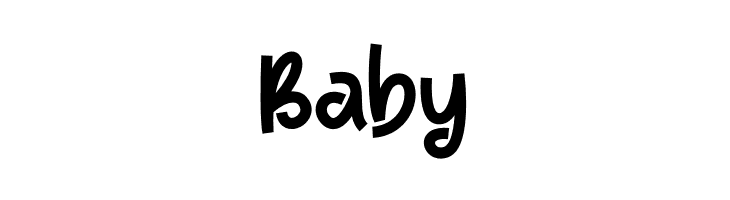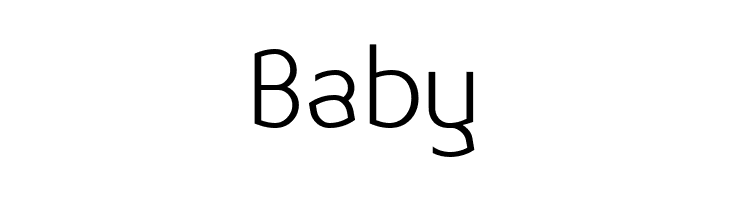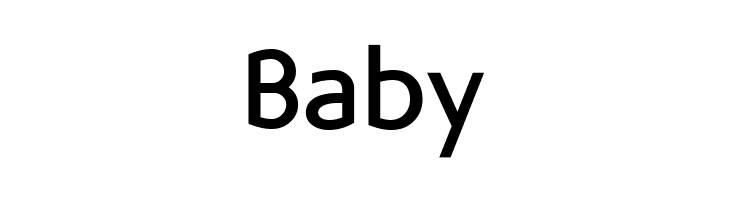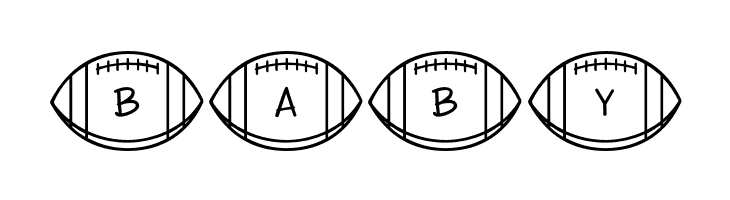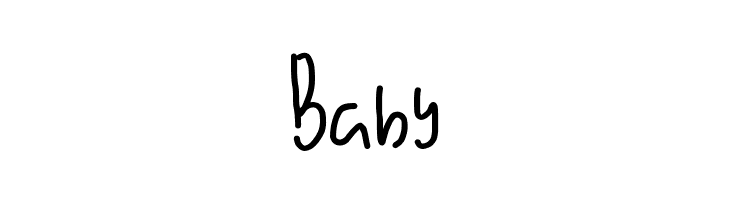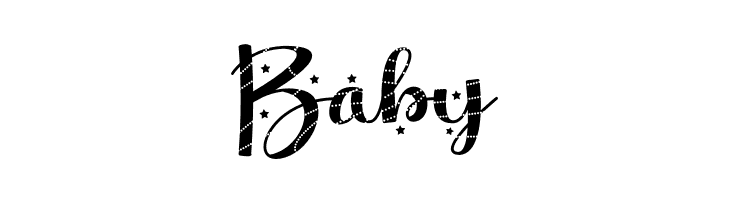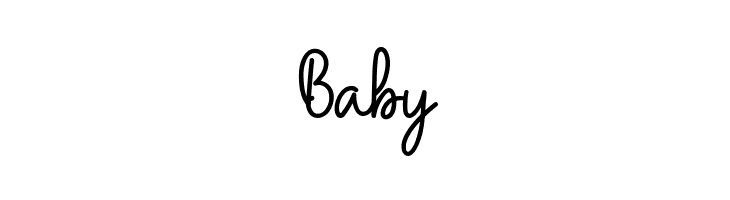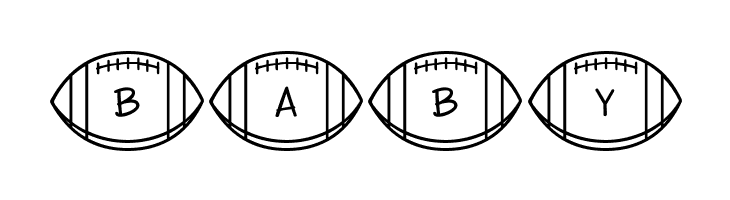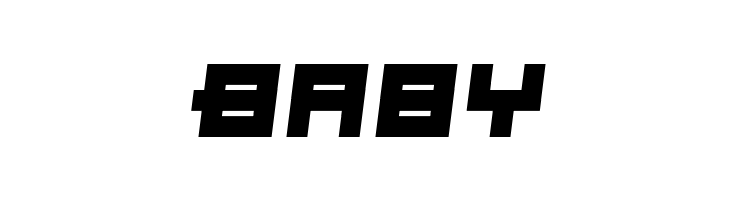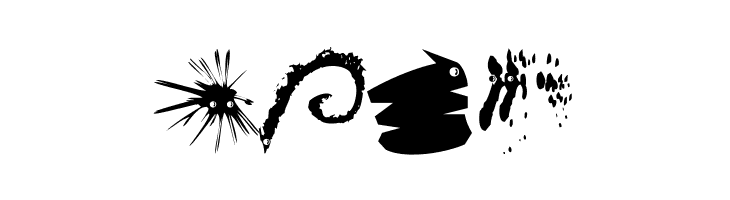
A playful, bold handwritten font with thick, rounded strokes.
A playful, decorative font with heart motifs and rounded characters.
A playful, handwritten font with a whimsical, cursive style.
A bold, angular Blackletter-inspired font with a modern edge.
A playful, modern font with heart-shaped embellishments and clean lines.
A playful, hand-drawn style with a rough, textured appearance.
A playful, informal handwritten font with smooth, flowing lines.
Casual handwritten font with playful character.
A whimsical, creature-inspired decorative font with playful and abstract shapes.
A playful handwritten font with a whimsical and artistic style.
Abstract symbols, not a valid font.
A bold, decorative font with characters enclosed in star-adorned frames.
A bold, expressive handwritten font with dynamic strokes and a playful appearance.
A playful, hand-drawn font with a dynamic, tubular design.
A bold, geometric font with strong, angular lines and a sports-inspired design.
A decorative font with characters inside football shapes, ideal for sports themes.
A decorative font with characters inside football shapes, perfect for sports themes.
A playful and bold font with exaggerated curves and angles, perfect for creative projects.
A bold, dynamic font with angular cuts and a sense of motion.
A playful, hand-drawn font with rounded characters and a friendly vibe.
A playful, casual handwritten font with smooth, rounded edges.
A festive, decorative font with stars and stripes, perfect for holiday themes.
A playful, whimsical handwritten font with tall, narrow letters and a casual style.
A playful handwritten font with a casual and friendly style.
A playful, hand-drawn font with a whimsical and informal style.
A playful, handwritten font with a casual and friendly appearance.
A modern, light sans-serif font with a clean and elegant design.
A decorative, grunge-inspired font with a vintage and eclectic style.
Bold, angular, and futuristic with a geometric design.